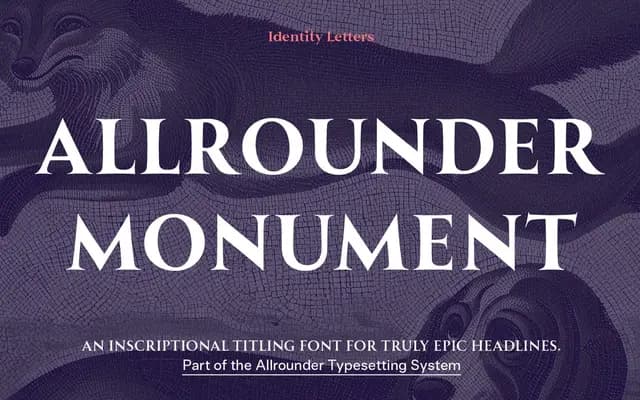
Allrounder Monument
An all-caps titling serif drawn from ancient Roman monumental inscriptions, offered in three weights as part of the broader Allrounder superfamily.
Conceived from letterforms carved on Roman columns and monuments over two millennia ago, this typeface translates that classical restraint into a contemporary titling tool. Three weights, Book through Medium, share horizontal metrics with the other Allrounder families, making cross-family combination straightforward. OpenType discretionary ligatures and a stylistic set extend the range of headline treatments available.
An all-caps titling typeface with delicate serifs drawn from ancient Roman monumental inscriptions, intended exclusively for display sizes. Its inscriptional origins and caps-only design place it firmly in the display category.